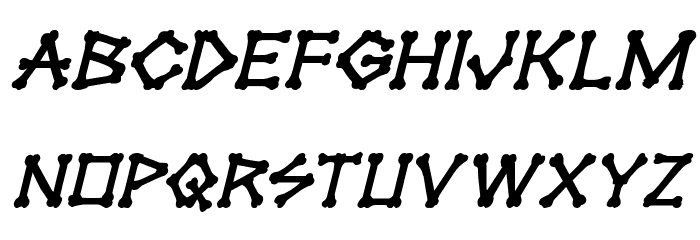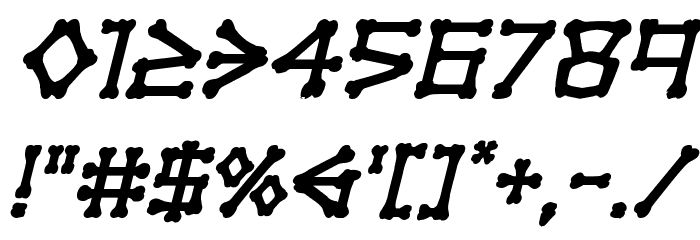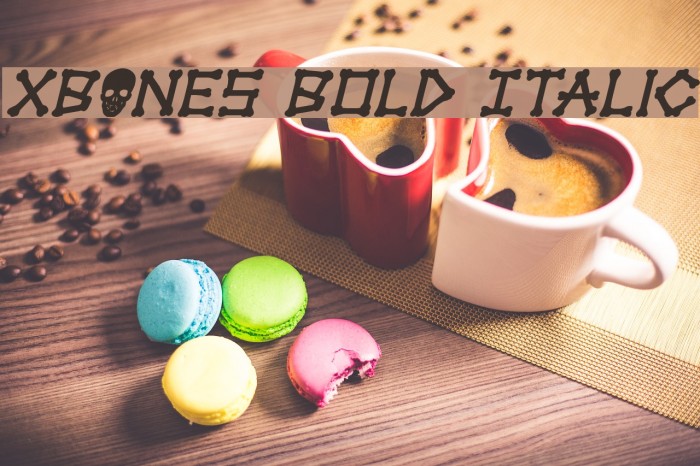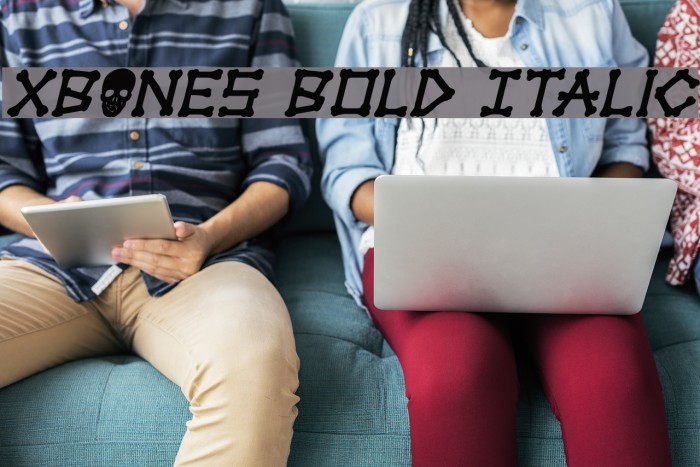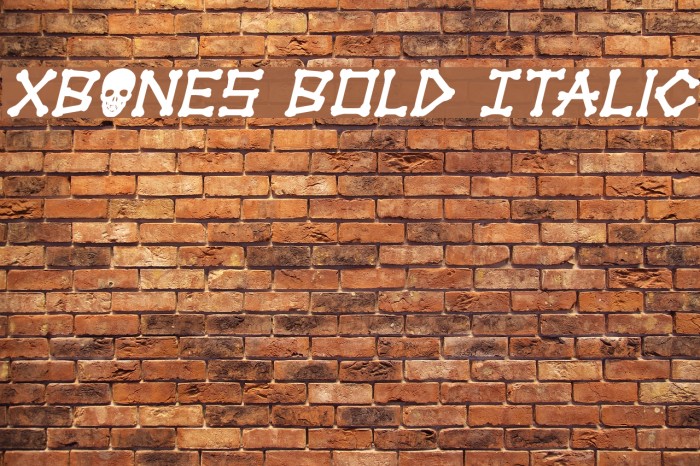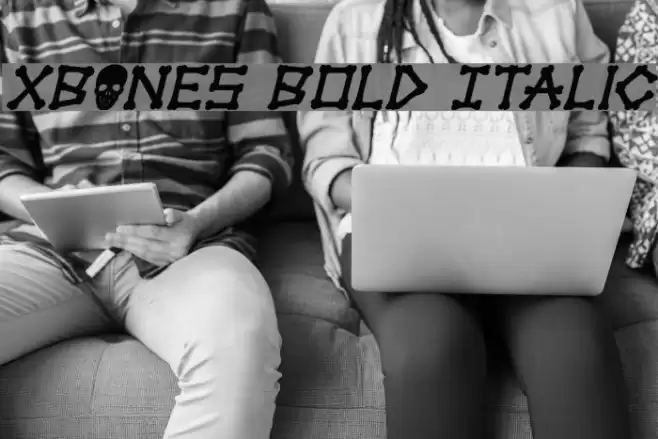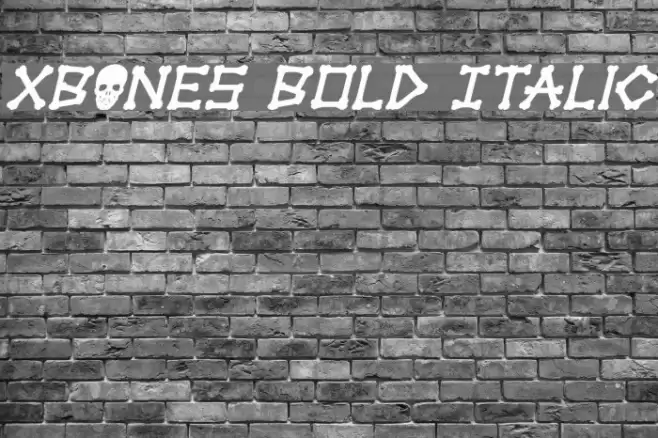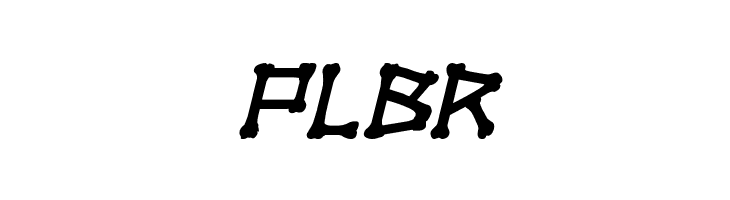
xBONES Bold Italic Font
This font features a unique and playful design that mimics the appearance of bones. Each character is crafted to resemble skeletal structures, giving it a distinct and edgy look. The bold and italic styling enhances its dramatic effect, making it stand out in any design. The font includes uppercase and lowercase letters, numbers, and a variety of special characters. Its quirky and thematic style makes it ideal for Halloween-themed projects or any design requiring a spooky or adventurous vibe.
A bold, italic font with characters resembling bones, perfect for spooky themes.
- Proposed Projects: Ideal for Halloween invitations, horror movie posters, themed party decorations, and any project needing a spooky or adventurous touch.
- Use Case: Headlines, Logos, Themed Designs